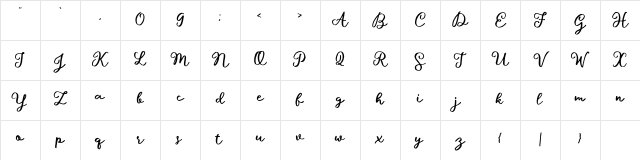
Hillary Script Demo flows with the natural rhythm of handwritten lettering, making it ideal for designs that call for warmth and personal expression.
Font Pairing: Combine Hillary Script Demo with a simple geometric sans for maximum contrast - the tension between flowing curves and clean structure is a classic typographic pairing.
Pro Tip: Use Hillary Script Demo for short runs of text - names, titles, or taglines. Extended body copy in script faces tires the eye quickly.